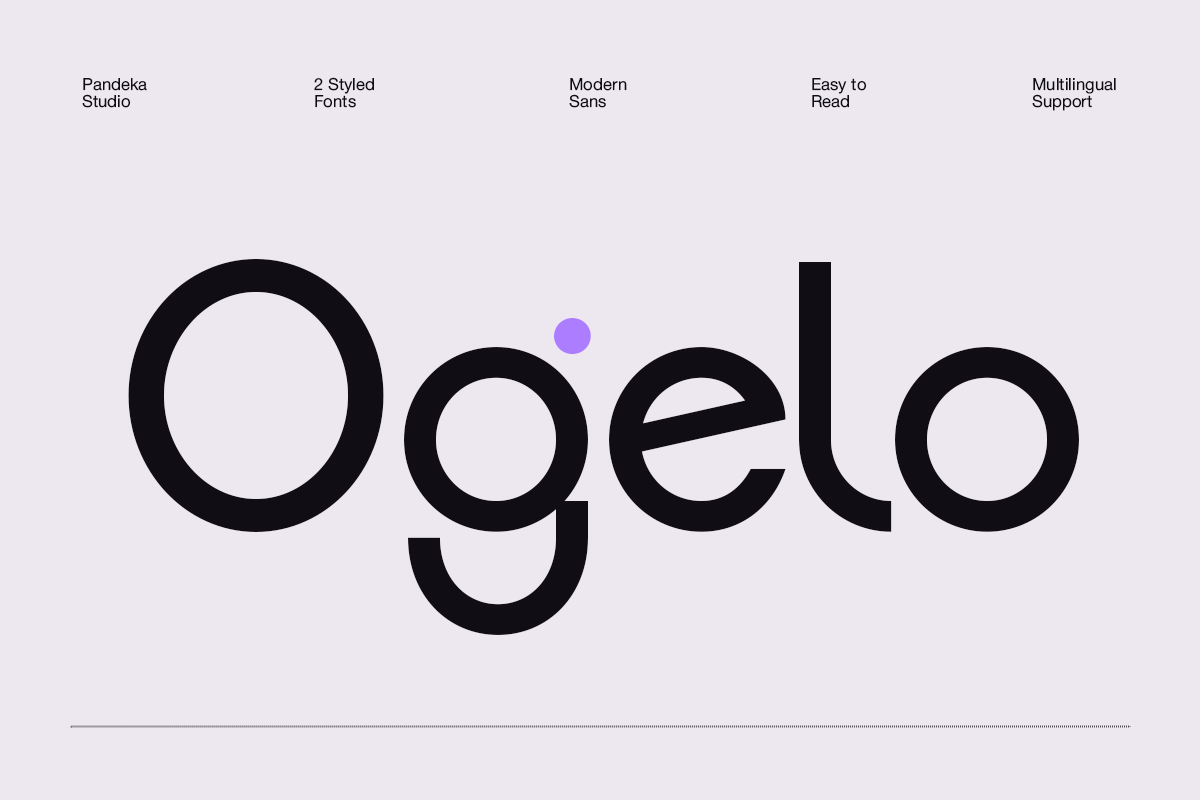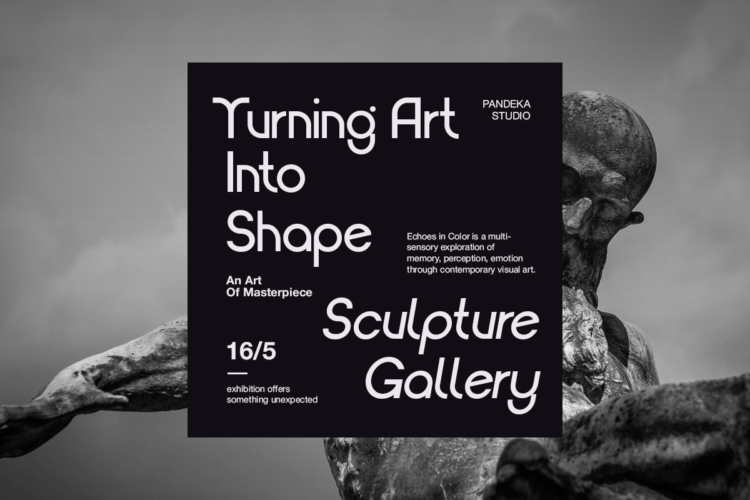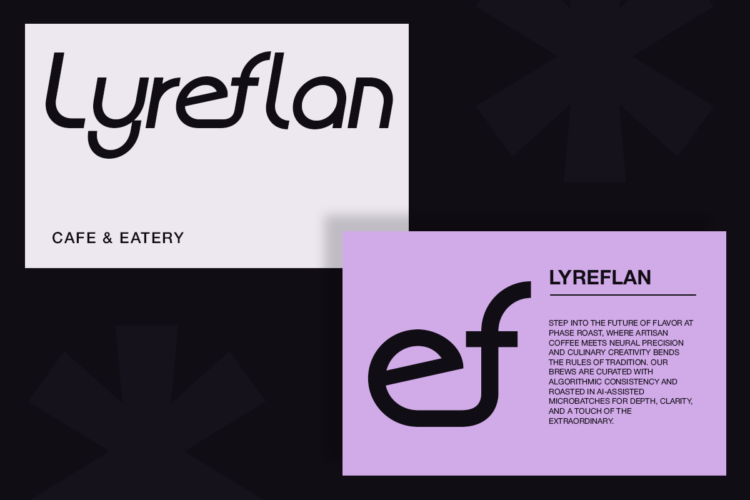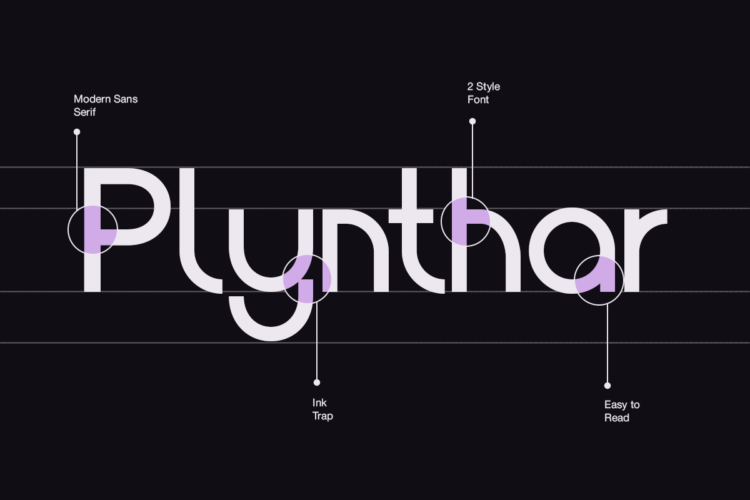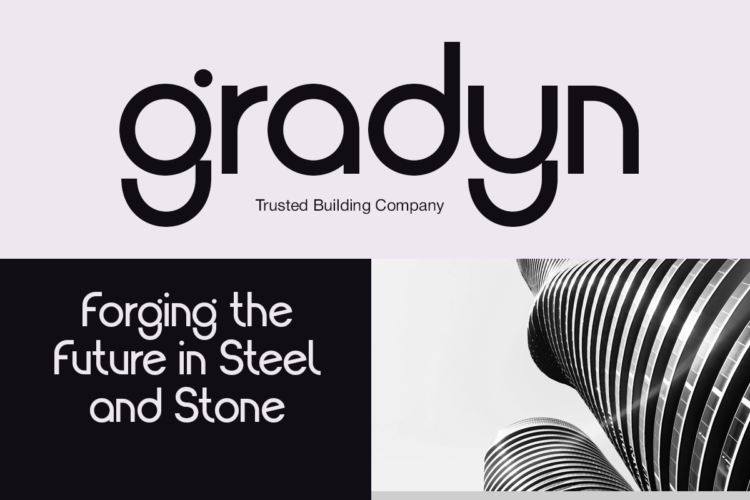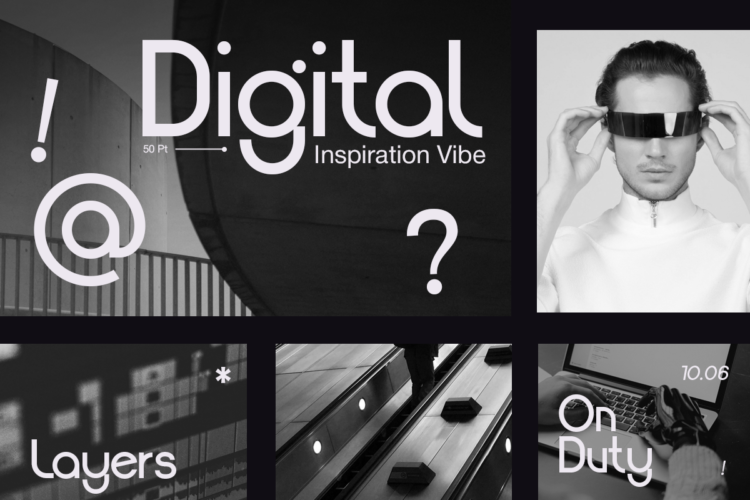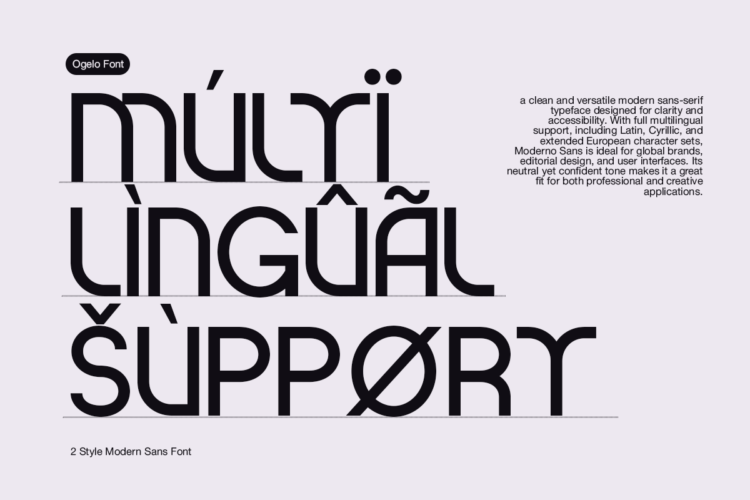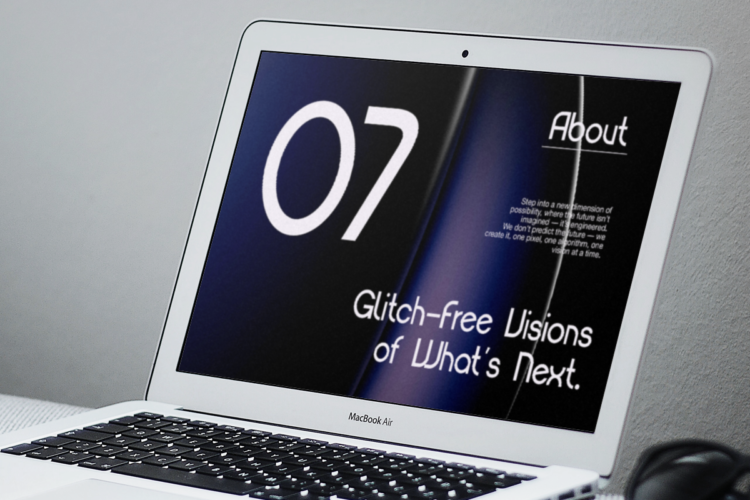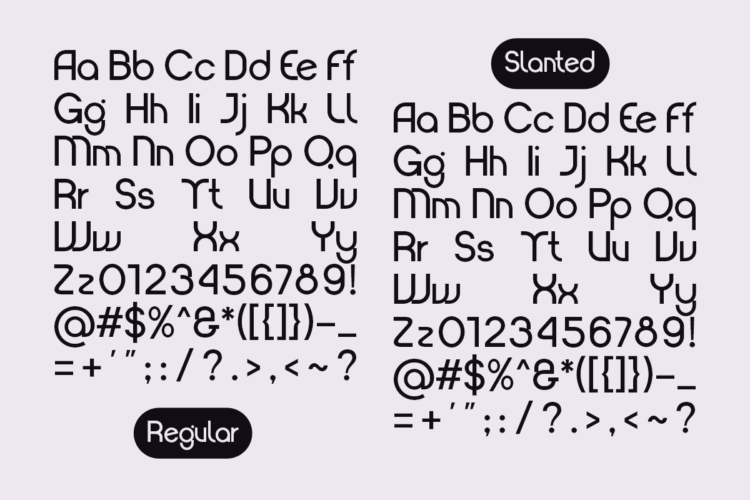
Ogelo Regular
Ogelo Slanted
Ogelo is a soft and friendly rounded sans-serif font that blends geometric shapes with a refined, modern character. Perfect for lifestyle brands, galleries, editorial design, or UI projects, Ogelo provides versatility and charm through its approachable letterforms.
This typeface features both Regular and Slanted styles, offering flexibility for expressive typographic compositions. Ogelo is equipped with multilingual support, numerals, and punctuation—making it ready for both print and digital environments.
• 2 Style: Regular and Slanted
• 66+ Ligatures and alternates
Whether you’re crafting a visual identity or building a clean web interface, Ogelo keeps the tone elegant, modern, and distinctively human.
Ogelo – Rounded Modern Sans